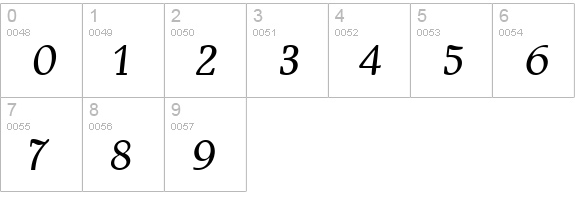
Devroye Unicode is a versatile and elegant font that is perfect for a wide range of design projects. With its clean and modern look, this font is ideal for both digital and print applications. Designed with attention to detail, Devroye Unicode offers a wide range of characters and symbols, making it suitable for multilingual projects. What sets Devroye Unicode apart is that it is available for free download at FontsMarket.com. This means that you can easily access this high-quality font without any cost, making it a great choice for designers on a budget. Whether you need a font for a website, poster, or branding project, Devroye Unicode has you covered. In addition to its beauty and versatility, Devroye Unicode also offers great readability, making it a practical choice for a variety of design purposes. Its sleek and modern design will add a touch of sophistication to any project, while its free availability makes it a convenient option for designers looking to enhance their work without breaking the bank. Overall, Devroye Unicode is a fantastic font that combines style, functionality, and affordability. Download it for free today at FontsMarket.com and elevate your design projects with this versatile and stylish typeface.